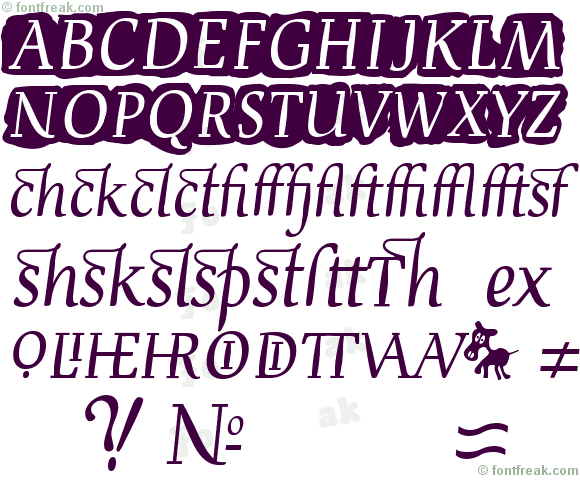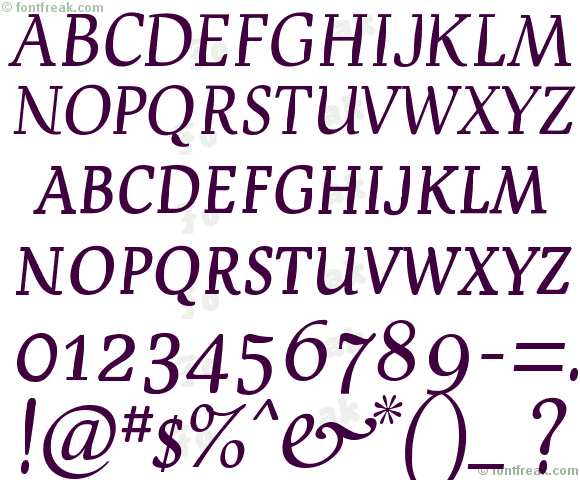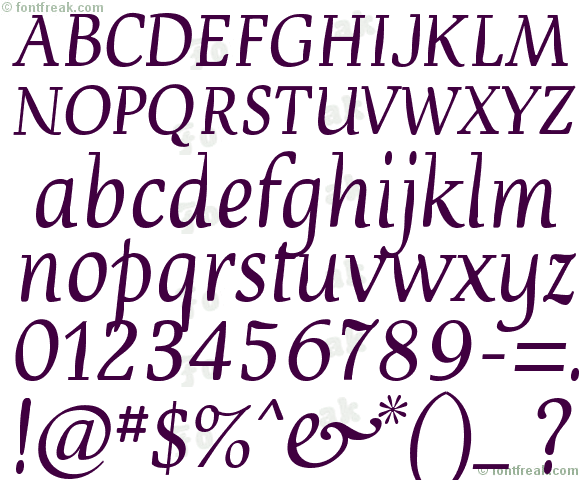
Devroye
Devroye Extra
Devroye Unicode
Devroye SCOSF
Devroye, designed by Apostrophic Labs in 2002, is a distinctive serif font that captivates with its unique character and elegance. The typeface features a moderate stroke weight with subtle contrast, which adds a refined touch to its overall appearance. The letterforms are artfully crafted, showcasing slightly rounded edges and a gentle slant, making it visually appealing while retaining readability. Its spacious letter spacing allows for a clean and airy presentation, enhancing its legibility in various applications.
This versatile font is particularly well-suited for a range of creative projects. It shines in wedding invitations, where its sophisticated style can convey a sense of romance and elegance. Additionally, Devroye is an excellent choice for movie posters, lending a dramatic flair that draws attention. Restaurant menus can benefit from its charming aesthetics, providing an inviting look that complements culinary offerings. Moreover, it works beautifully in branding materials for small businesses, helping to create a memorable identity that resonates with clients.
Targeted towards graphic designers, small business owners, and content creators, Devroye is a font that offers both versatility and style. Its unique characteristics make it a valuable addition to any designer's toolkit, enabling them to create visually striking and memorable designs.
What truly sets the Devroye font apart is its ability to blend classic serif elements with modern sensibilities, making it a timeless choice for a variety of uses. Whether you're designing a sophisticated invitation or an eye-catching poster, the Devroye font free download provides an accessible option that elevates your projects. Embrace the elegance and creativity of Devroye, and let it enhance your design endeavors with its distinctive charm.